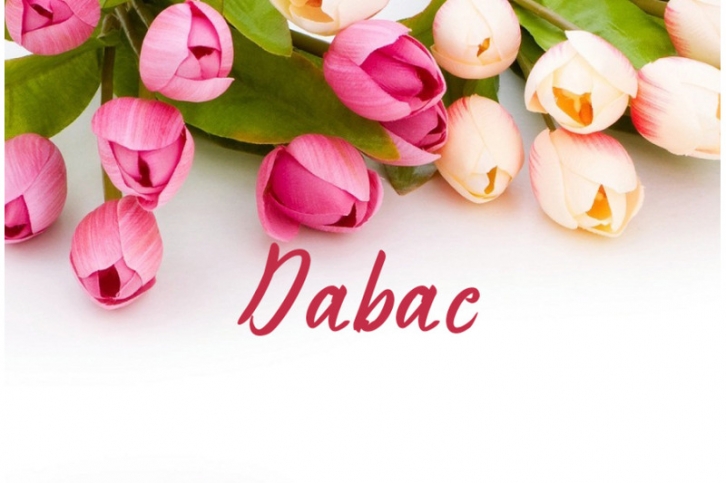
A stylish handwritten font that features a varying baseline, smooth line, modern and with a depth of love. For those of you who need a touch of love and modernity for your designs or branding, it can be used for various purposes such as headings, wedding, invitation, signature, logos, branding, t-shirt, letterhead, signage, label, news, posters, badges etc.